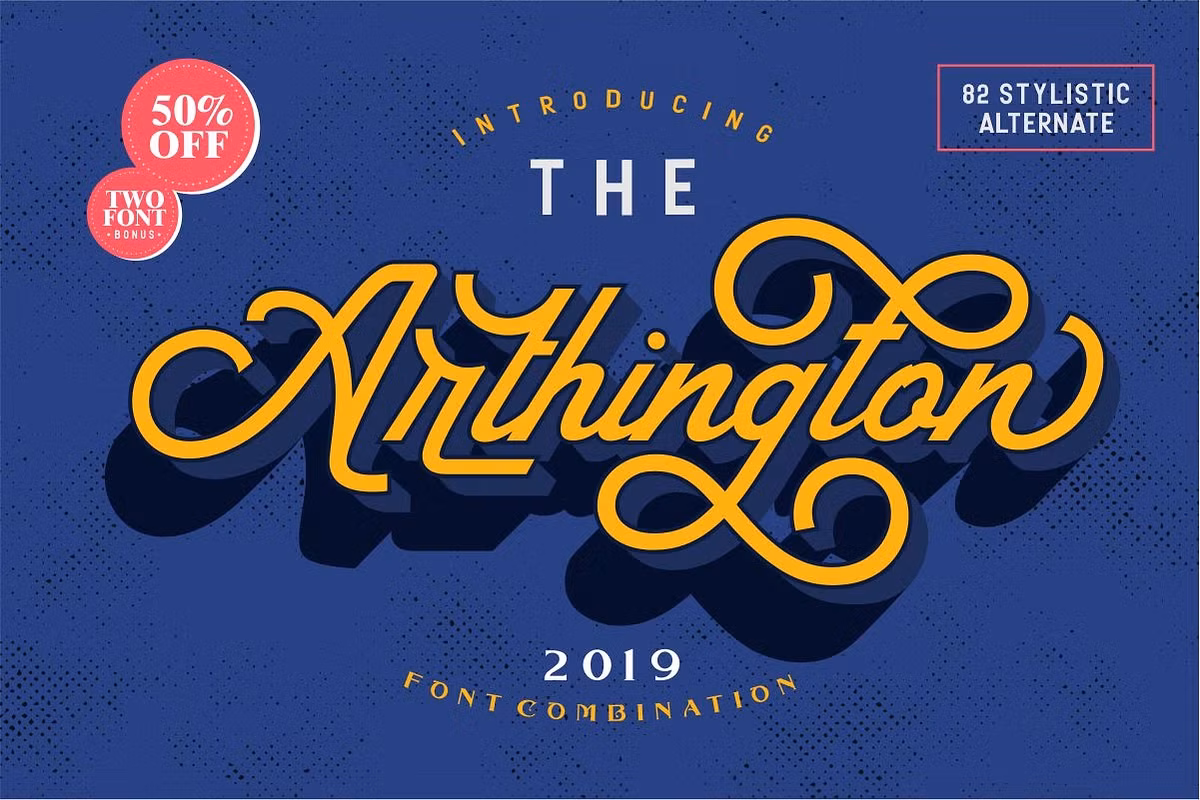
The Arthington + Bonus 2 Font Free Download
The Arthington + Bonus 2 Font Free Download is a refined script typeface with a classic, signature-style aesthetic—perfect for high-end branding, personal logos, business cards, wedding invitations, and elegant packaging. With its smooth strokes and stylish ligatures, Arthington creates a handwritten feel that is both professional and full of personality.
This font package includes not just the main script font but also two bonus fonts to help you build a cohesive design system. The extras offer complementary styles—such as serif or sans options—ideal for secondary text or layout balance. It’s an all-in-one solution for sophisticated, versatile design work.